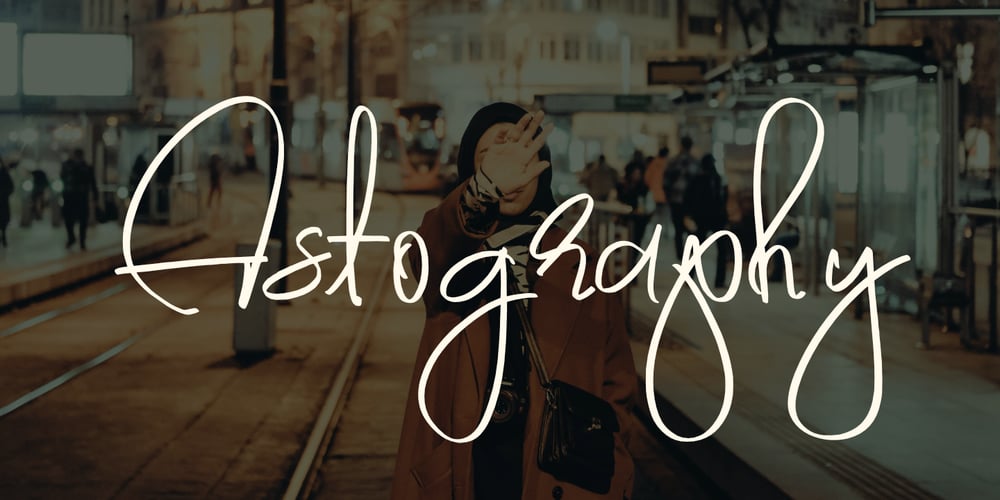
Astography Font Family was designed by Syukur Setiyadi and published by SSI.Scraps. Astography contains 1 styles and family package options. Astography is upright handwriting signature font. it is legible, readable and classy